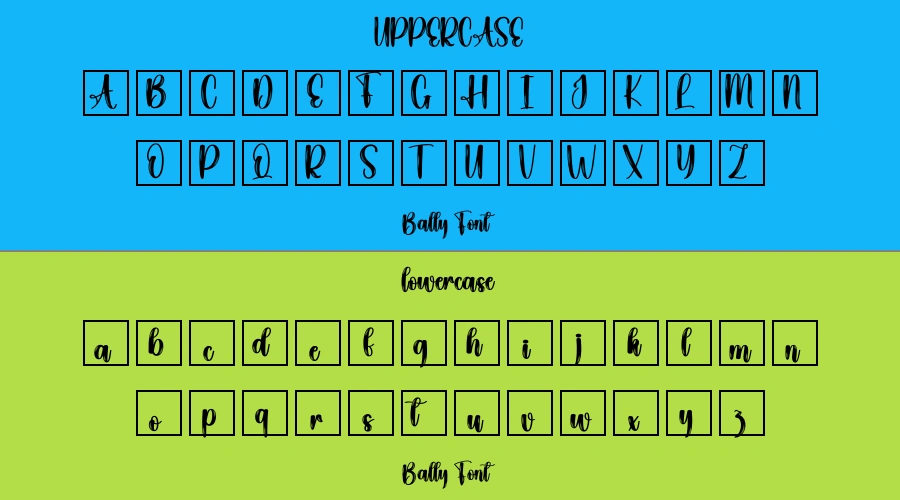
About Bally Font
Bally Font represents a sophisticated approach to type design, balancing ink flow effects with visual comfort. Perfect for presentation decks, this font family showcases impressive clarity and visual authority throughout its character set. Designers appreciate its versatility and reliability.
Designers will appreciate nuanced touches including unique personality and word marks, adding sophistication to any project. These features become apparent in corporate communications, where special character access matters most. The careful treatment of descender depth and regulatory compliance ensures optimal performance.